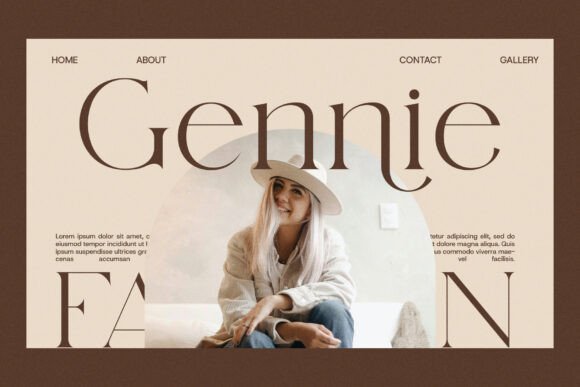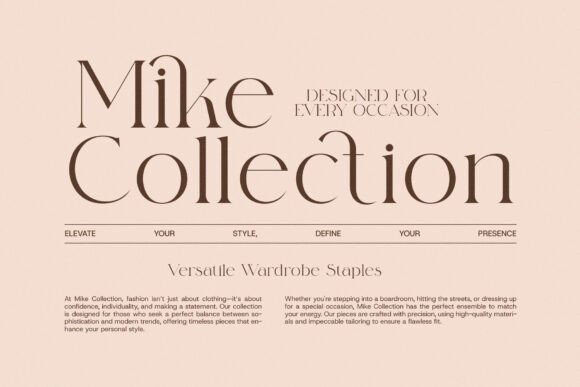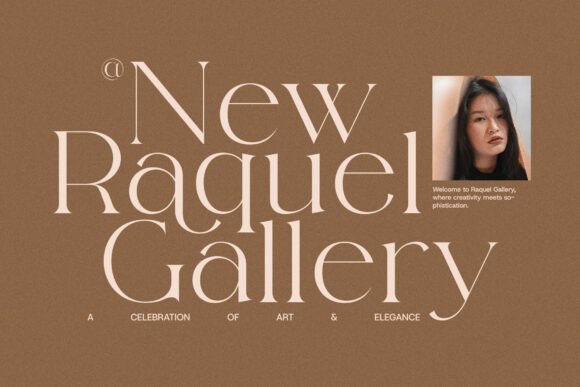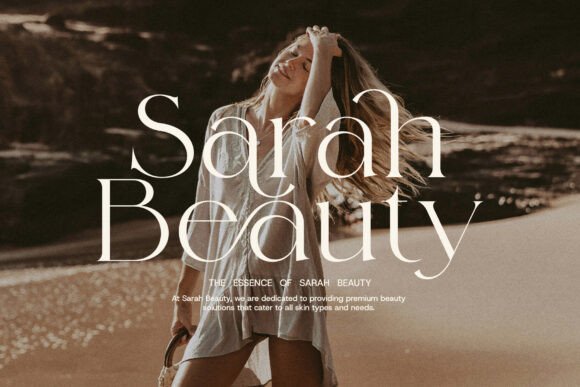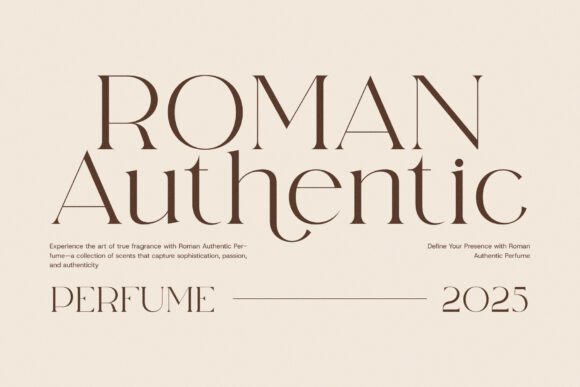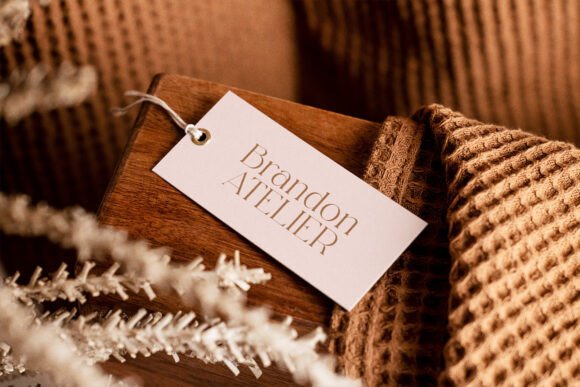
Introduction to Malfina Font
As a designer, you’ve likely experienced that moment when you’re brainstorming ideas for a creative project and you need the perfect font to bring your vision to life. You scroll through your font library, searching for something that exudes elegance and sophistication, yet still conveys a sense of modernity and edge. That’s where the Malfina Font comes in – a refined and stylish serif font that perfectly balances classic charm with a contemporary edge.
With its high-contrast strokes, meticulously designed ligatures and alternates, and a touch of individuality, the Malfina Font is more than just a design resource – it’s a statement piece that elevates your work to the next level. Whether you’re designing luxury branding, minimalist editorial layouts, or captivating website headers, this font adapts seamlessly while maintaining a distinct presence.
Key Features of Malfina Font
- High-quality design resource ideal for creative projects, offering a modern and elegant feel.
- Features a large character set, including a wide range of languages and symbols, making it suitable for various creative projects.
- Unique characteristics include its clean lines, geometric shapes, and sophisticated typography, making it a popular choice for designers and artists.
Honest Review: Malfina Font
I recently came across the Malfina Font while searching for design resources for a creative project. I was immediately drawn to its elegant and sophisticated design.
- ✨ The font is incredibly versatile and can be used for a wide range of creative projects, from invitations to corporate branding.
- ✨ The high quality design is evident in every detail, making it a great choice for designers who want to make a lasting impression.
- ⚠️ The font does not include a transparent background option, which may be a drawback for designers who need to use the font on a custom background.
- ⚠️ The font is only available in a limited number of weights and styles, which may not be sufficient for designers who need a wide range of options.
Overall, I’m impressed with the Malfina Font. Its elegant design and high quality make it a great choice for designers who want to create a professional-looking creative project. While it has a few limitations, I think it’s a valuable resource that’s definitely worth considering.
Common Use Cases for Malfina Font
The Malfina Font is ideal for a variety of creative projects, including logos, brochures, business cards, and social media graphics. Its high-quality design and transparent background make it perfect for designs that require a professional and modern look.